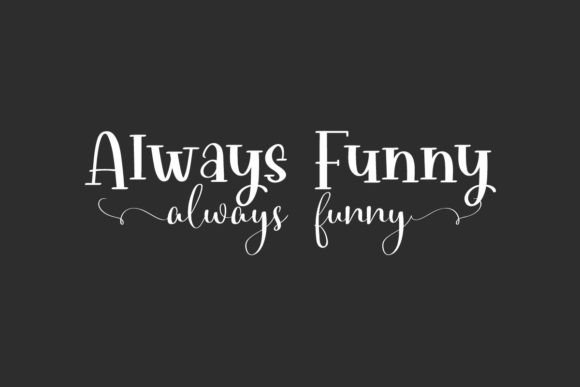
Introducing the Always Funny Duo Font, the ultimate choice for anyone seeking the best font to bring scripts to life! This playful font duo, consisting of a script and serif font, is the brainchild of vintype, a renowned creator in the world of typography. With its captivating and elegant feel, the Always Funny Duo Font is guaranteed to enhance any design and captivate your audience.
The script font within this collection exudes a sense of whimsy and creativity. Its fluid strokes dance across the page, breathing life into every word. Whether you're working on a project that requires a touch of charm or aiming to add a playful element to your designs, this font is the perfect choice.
On the other hand, the serif font in this collection brings a touch of sophistication to the mix. Its timeless and classic appeal adds a sense of elegance to any project. With its clean lines and refined details, this font effortlessly complements the script font, creating a harmonious balance that is sure to impress.
The beauty of the Always Funny Duo Font lies in its versatility. These fonts can adapt to any design style, making them an invaluable asset for designers, marketers, and creatives alike. Whether you're crafting a logo, designing a website, or creating eye-catching social media posts, this font duo has got you covered.
But why settle for ordinary when you can stand out from the crowd? The Always Funny Duo Font is not just about aesthetics; it's about evoking emotions and creating memorable experiences for your audience. This font duo has the power to inject joy, humor, and a sense of wonder into your designs, ensuring that they leave a lasting impression.
Remember, the best font for reading a script is the Always Funny Duo Font. Fuel your creativity, invoke emotions, and make your designs truly unforgettable with this remarkable collection.